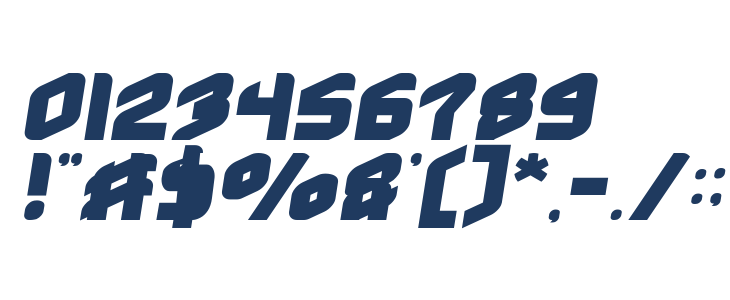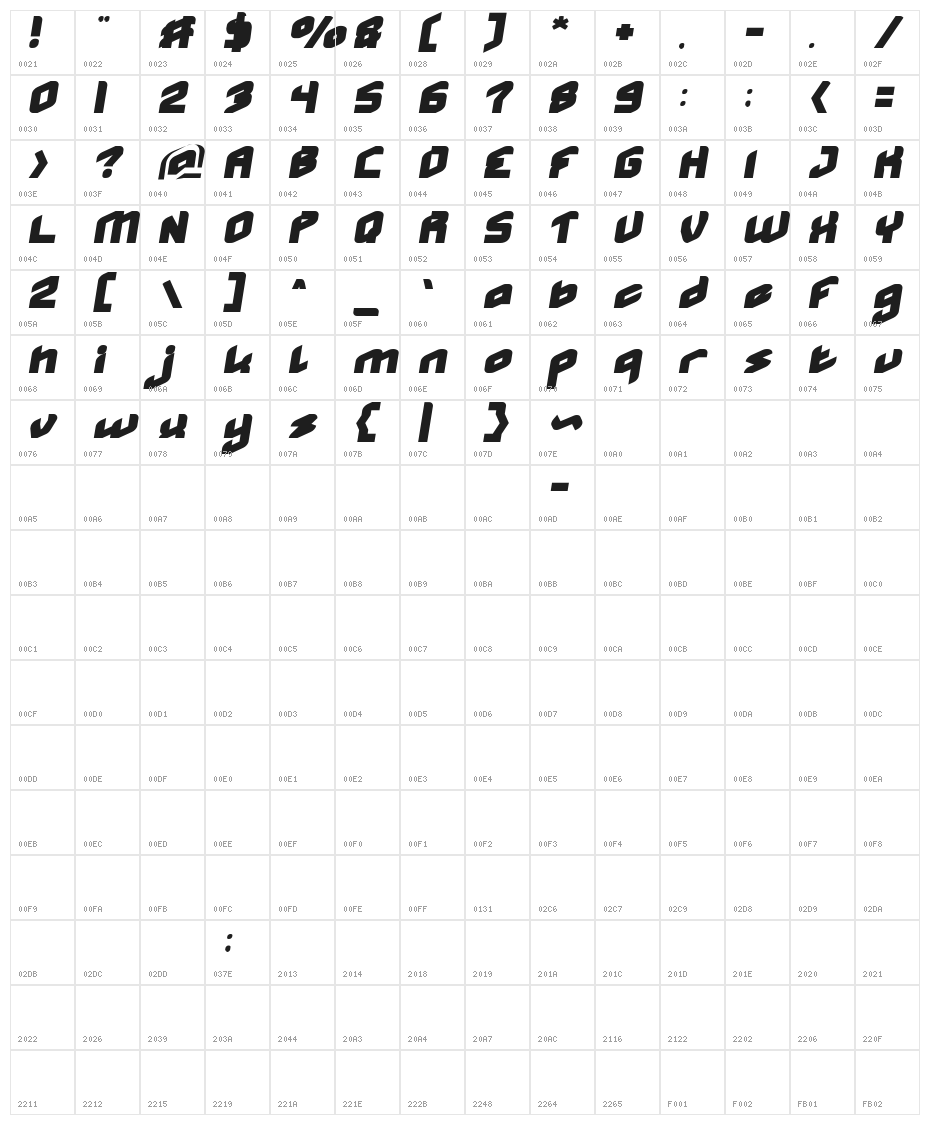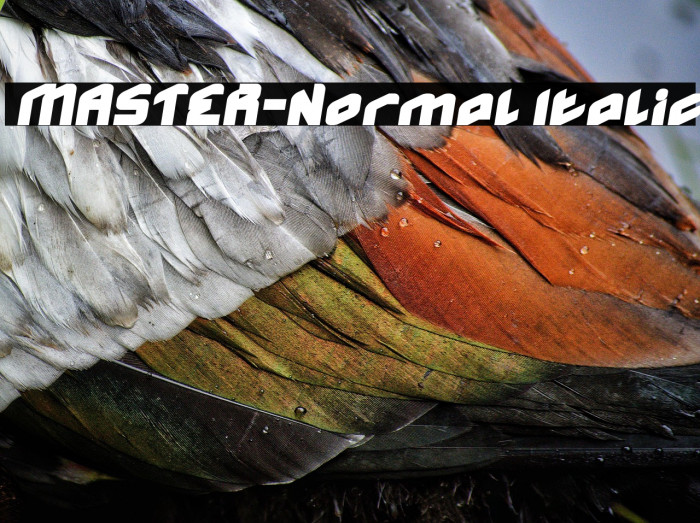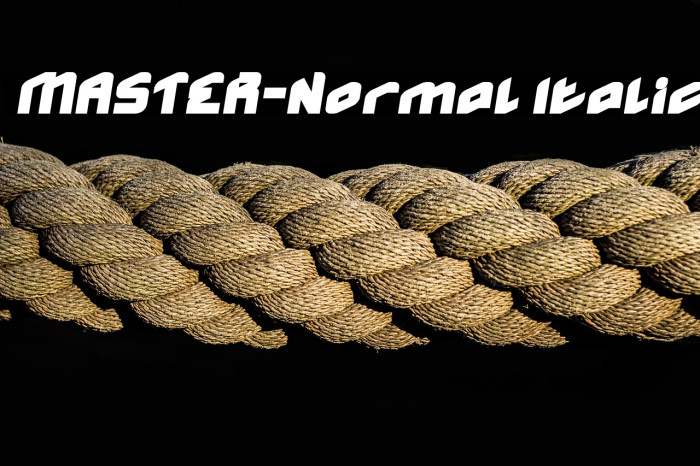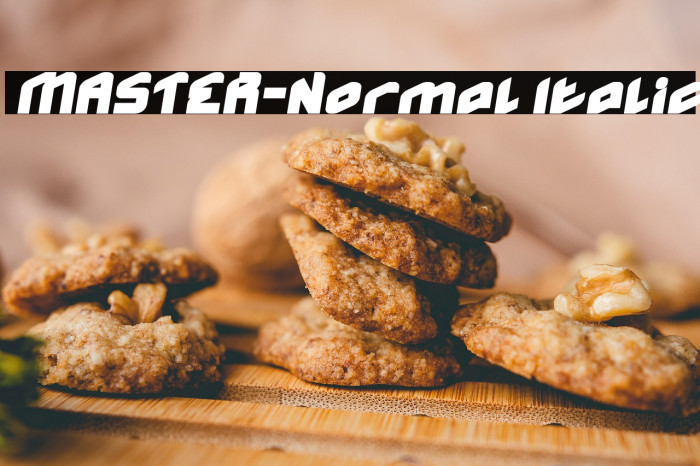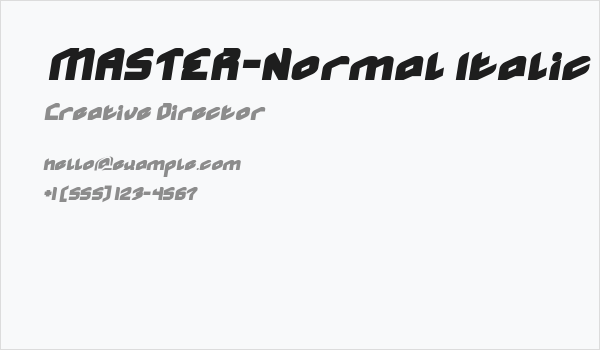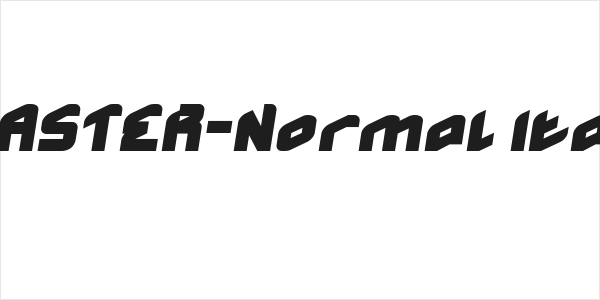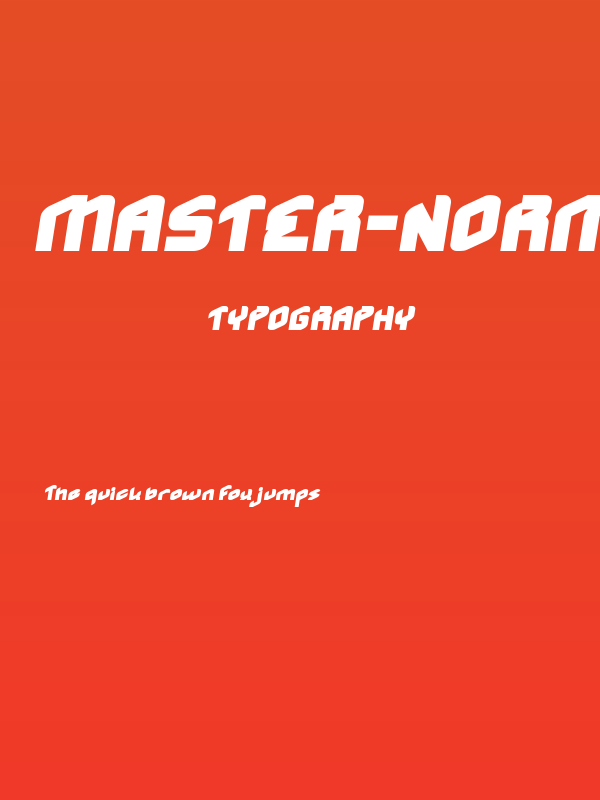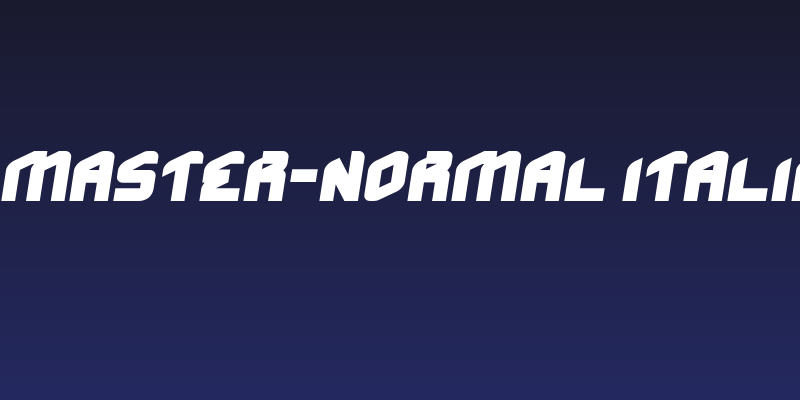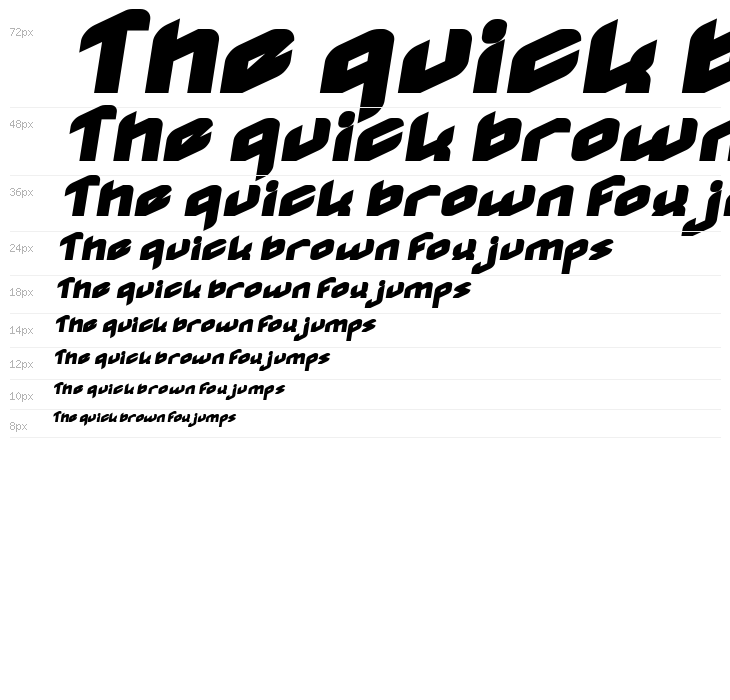
MASTER-Normal Italic Font
MASTER-Normal Italic Description
This font features a bold and dynamic style with a strong italic slant, giving it a sense of motion and energy. The characters are thick and robust, with angular cuts and sharp edges that create a modern and edgy appearance. The uppercase and lowercase letters maintain a consistent style, with the lowercase letters slightly more rounded. Numbers and special characters follow the same bold and angular design, ensuring uniformity across all glyphs. This font's distinctive style makes it stand out, suitable for projects that require a strong visual impact.
| Proposed Projects | Ideal for sports branding, dynamic posters, video game titles, and any project needing a bold, energetic typeface. |